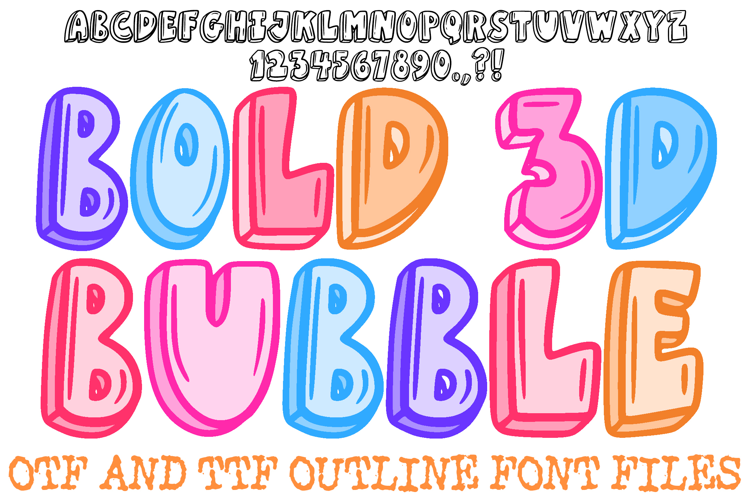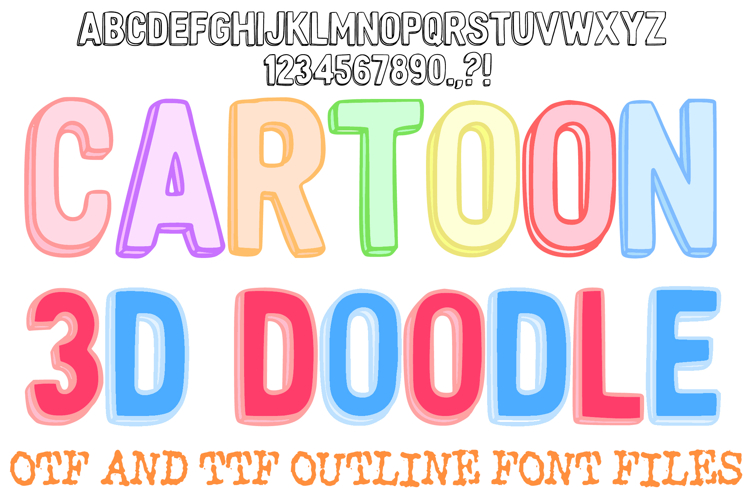
ThreeD Bulletin Board font, School Class Decor, Alphabets
Three D font is the perfect choice for School Classroom Bulletin Boards and Door Decoration.
This design font is perfect for kids’ activities or school projects, events, mugs, t-shirts, and clothing designs.
ThreeD